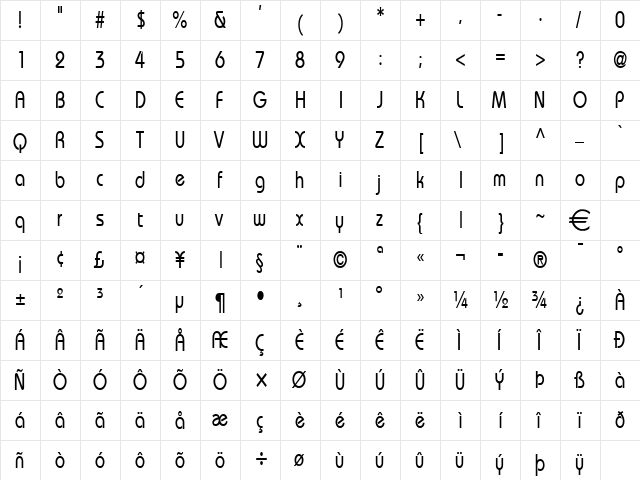
BiminiCondensed Normal
BiminiCondensed is a composed and adaptable typeface that performs quietly and consistently across a wide range of design contexts. The condensed width makes it efficient for tight spaces without sacrificing legibility.